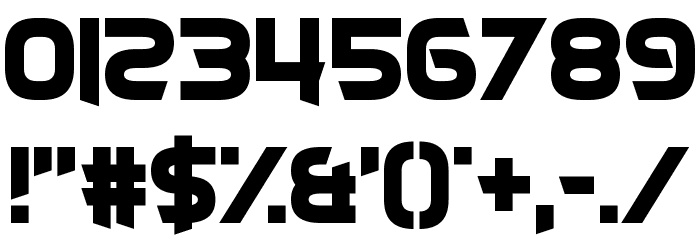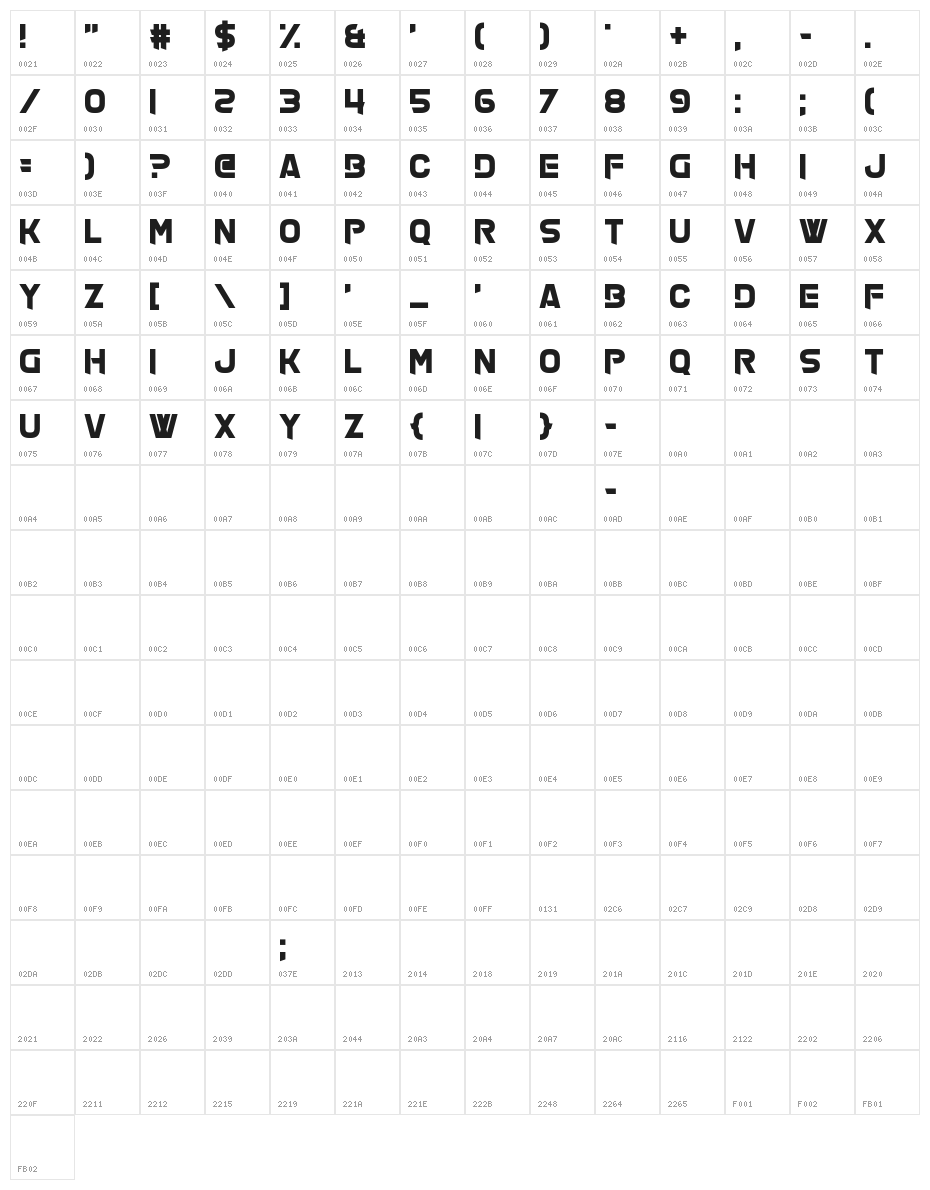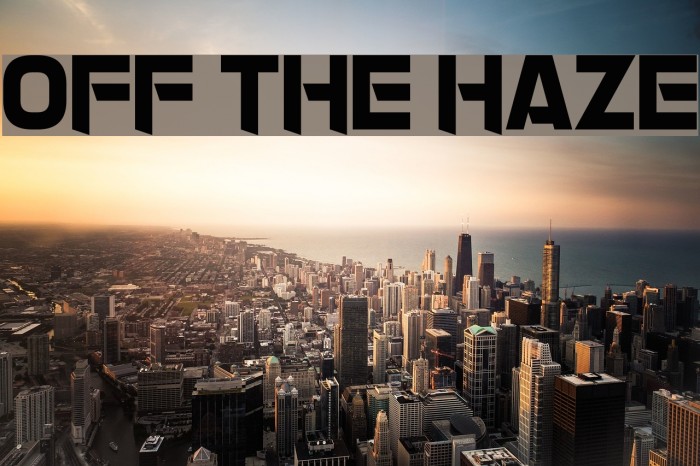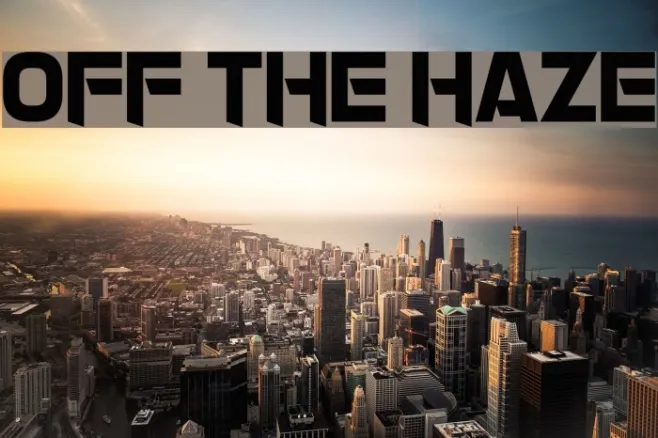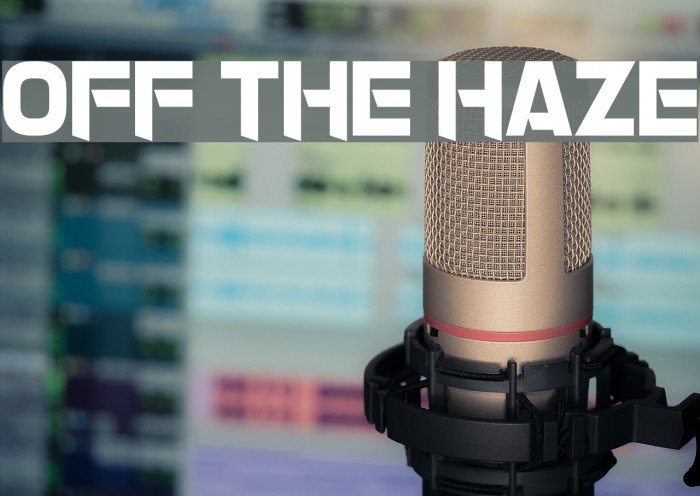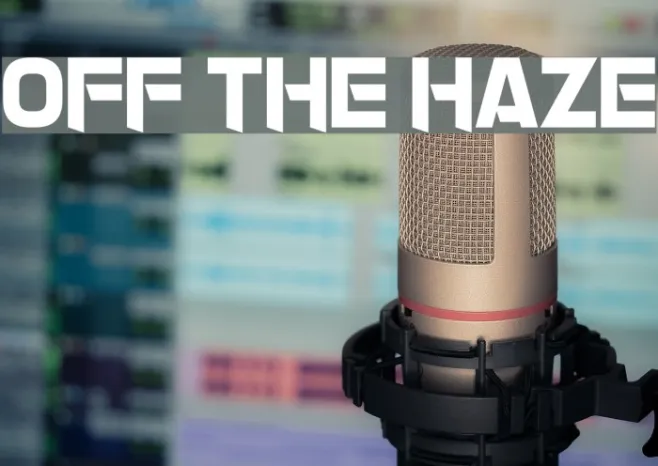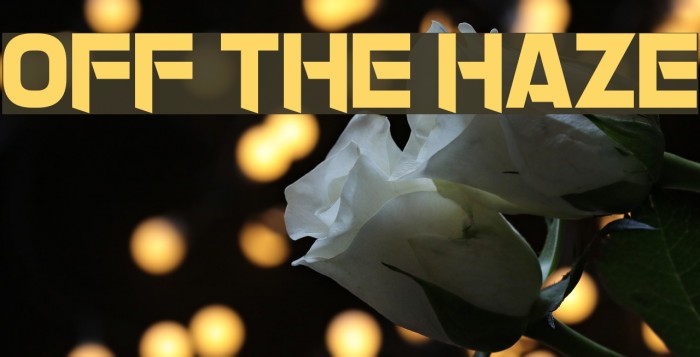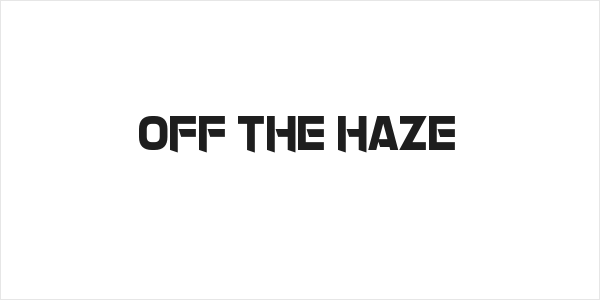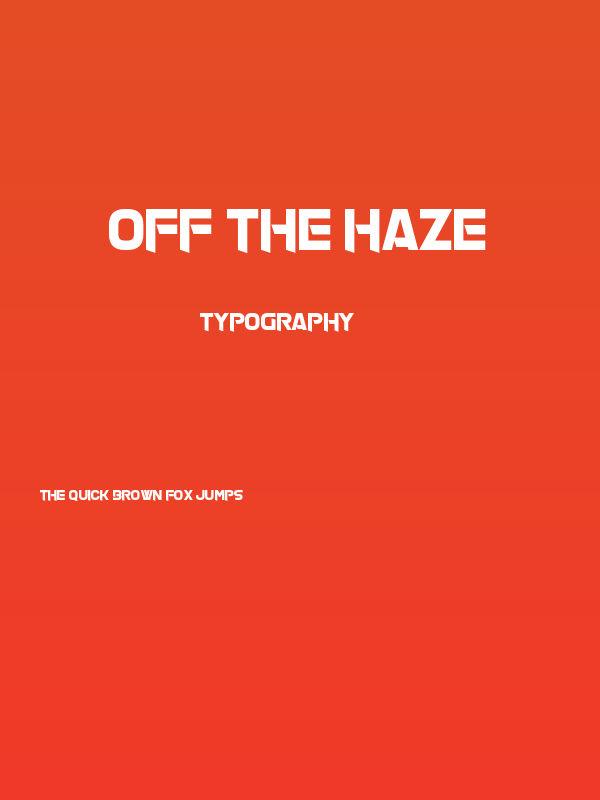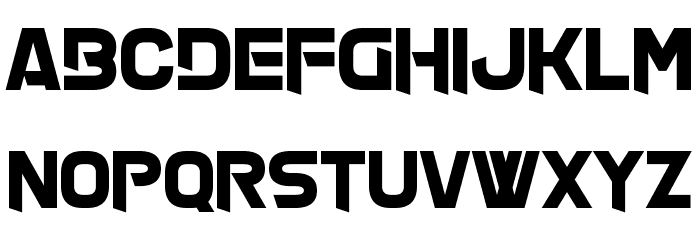
Off The Haze Font
Off The Haze Description
This bold and striking font features a geometric and angular design, characterized by its sharp edges and unique cutouts within each letterform. The uppercase letters are particularly distinctive, with a futuristic and industrial feel that makes a strong visual impact. The numbers and special characters maintain this bold aesthetic, ensuring consistency across all glyphs. The font's design is both modern and assertive, making it ideal for attention-grabbing headlines and branding projects where a strong, memorable impression is desired.